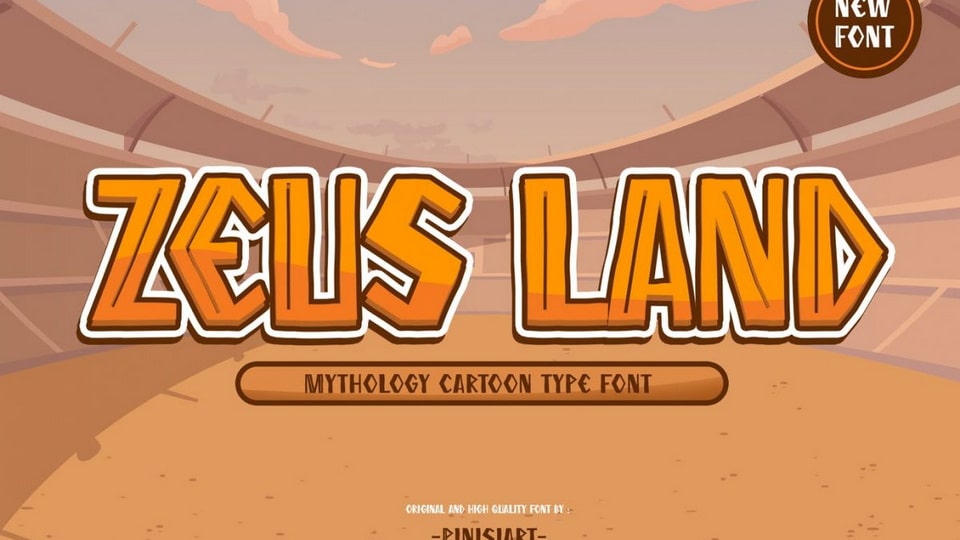
Download Zeus Land font, a gaming display typeface inspired the ancient Greek era. Zeus Land will bring the epicness of the god and mythology they had in those times. The gladiators, the battle of praetorians, the castle siege, all of that… will be brought to life with this font.